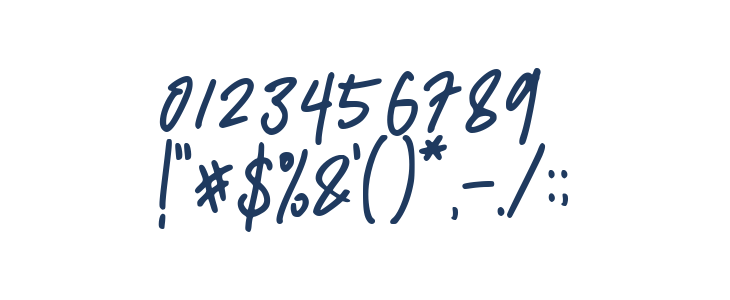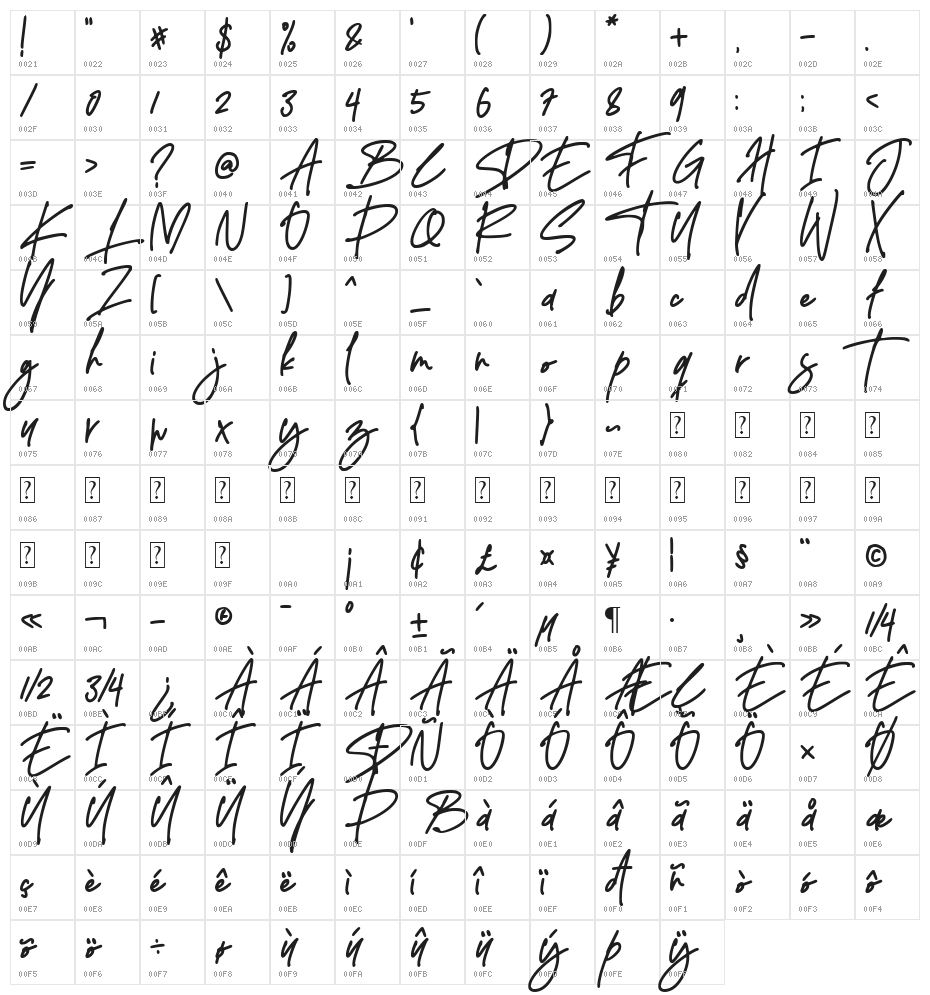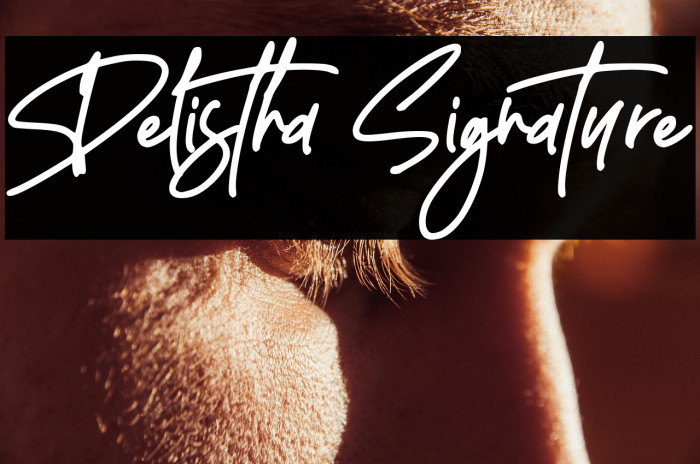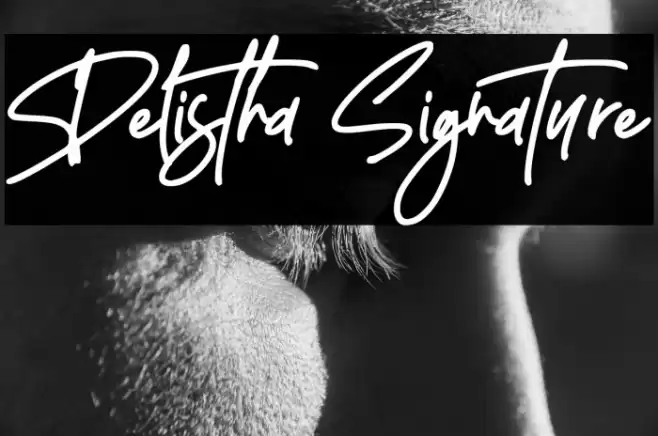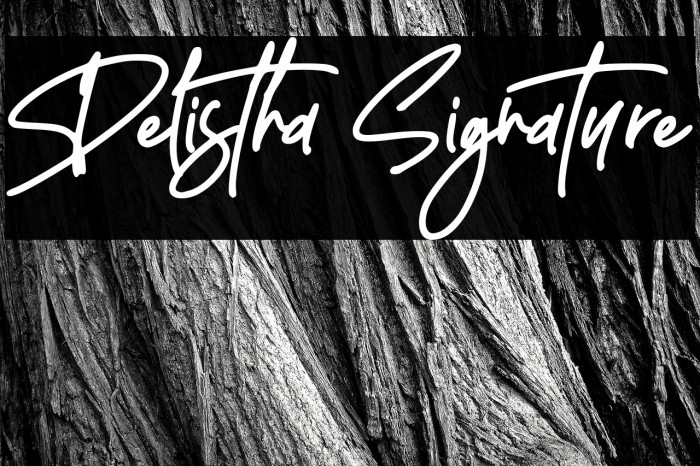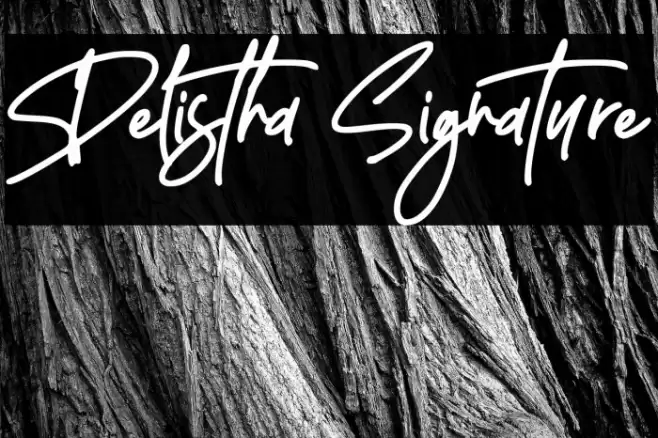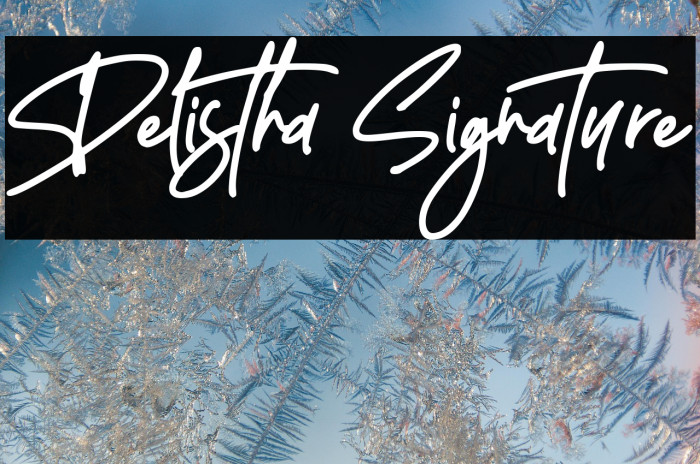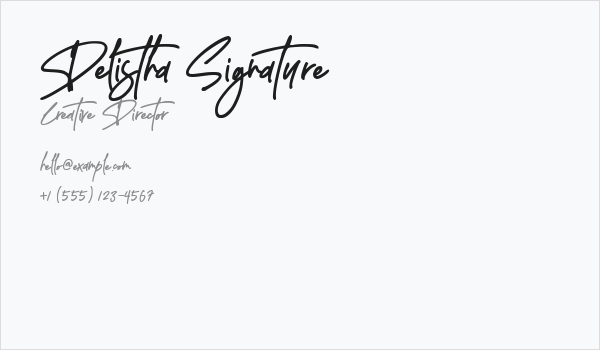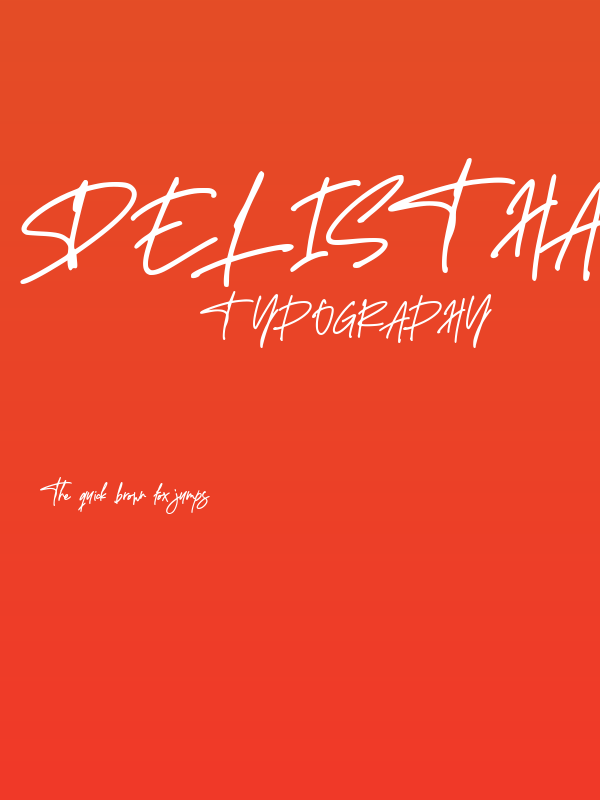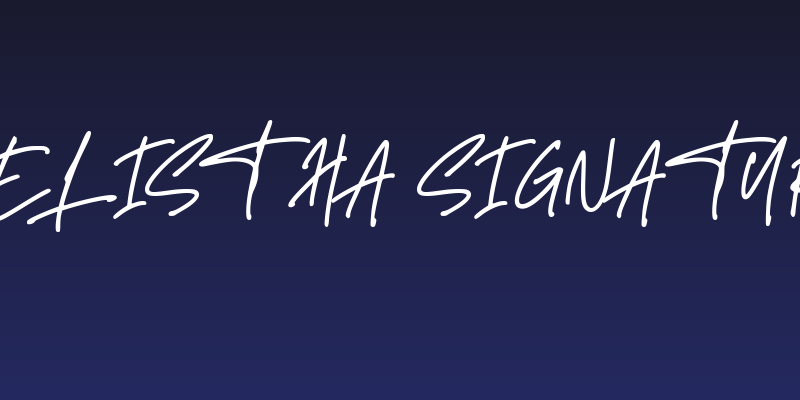
Delistha Signature Font
Delistha Signature Description
This font exudes a dynamic and expressive style, characterized by its fluid, handwritten appearance. The uppercase letters are bold and slightly slanted, giving a sense of movement and energy. The lowercase letters are more compact and feature a playful, cursive style that maintains legibility while adding a personal touch. The numbers are consistent with the overall style, featuring rounded edges and a casual flair. Special characters are integrated seamlessly, maintaining the font's cohesive look. This font is ideal for projects that require a personal, artistic touch, such as invitations, branding, or creative posters.
| Proposed Projects | Ideal for invitations, branding, creative posters, and artistic projects. |